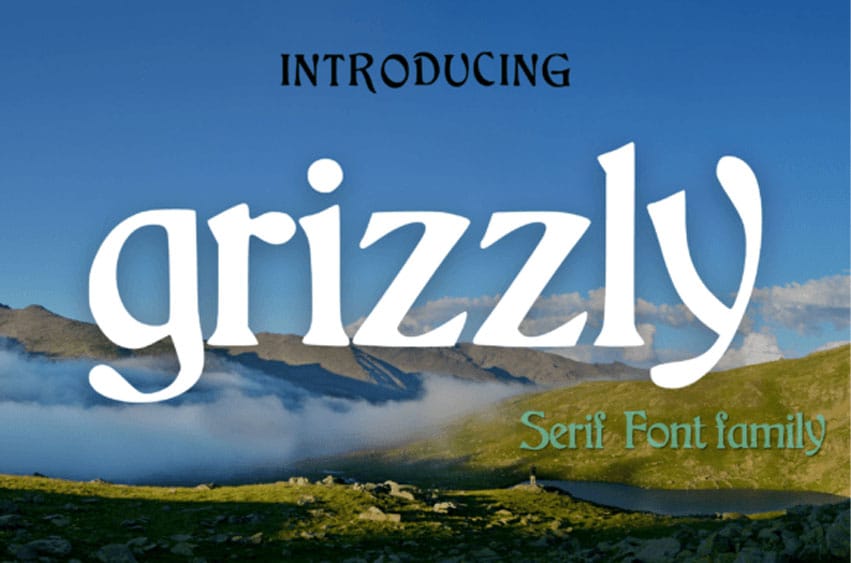
Grizzly Font is a simple serif font that is a masterclass in understated elegance. Its clean lines and classic proportions make it a popular choice for everything from formal invitations to academic papers.
With its timeless appeal and effortless readability, this font is sure to add a touch of class and sophistication to any project.